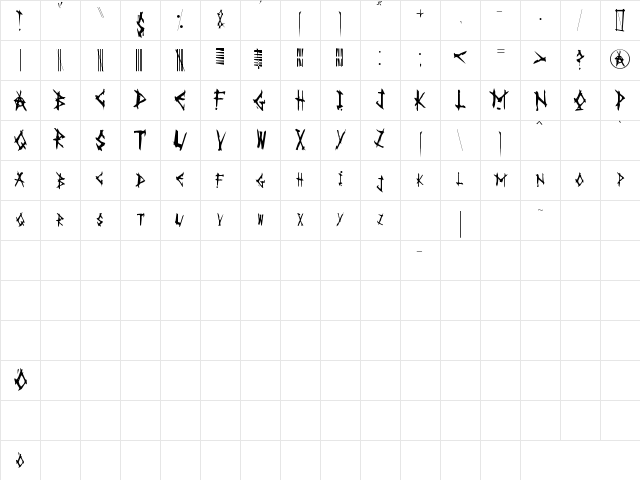
AnarK Regular Free Font
AnarK Regular
Design Context for AnarK
AnarK is a composed and adaptable typeface that performs quietly and consistently across a wide range of design contexts.